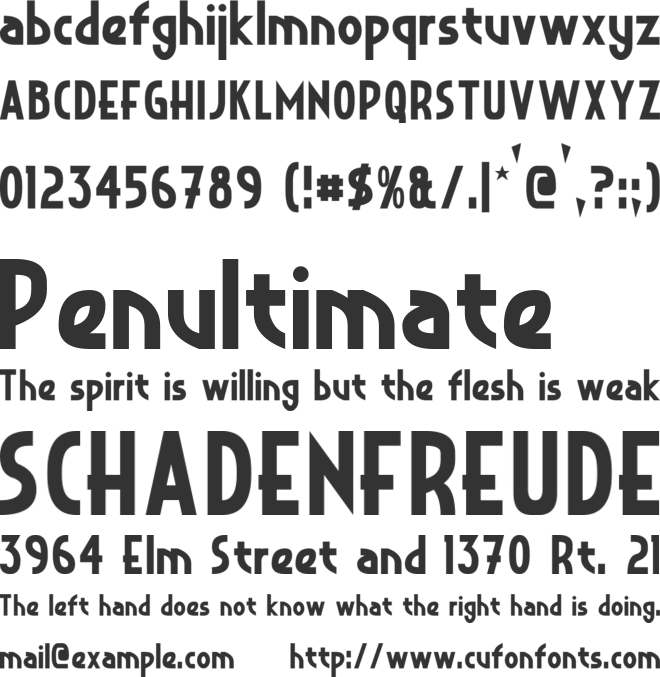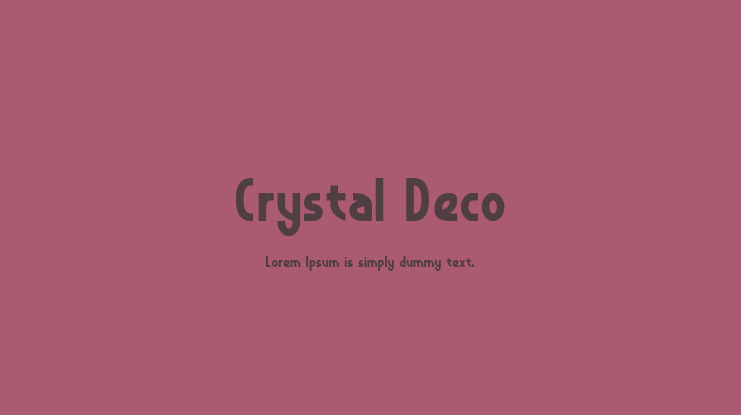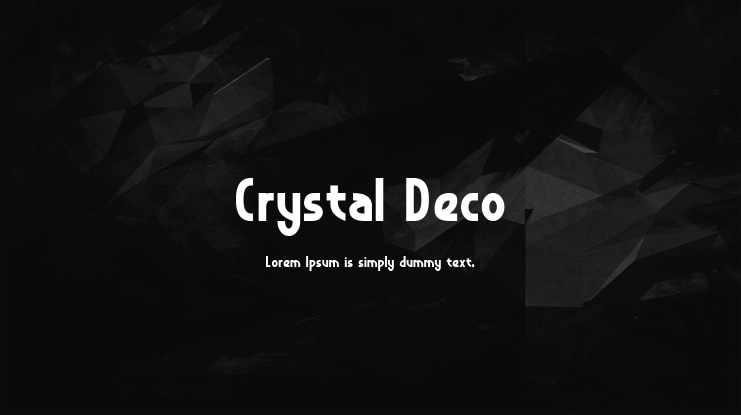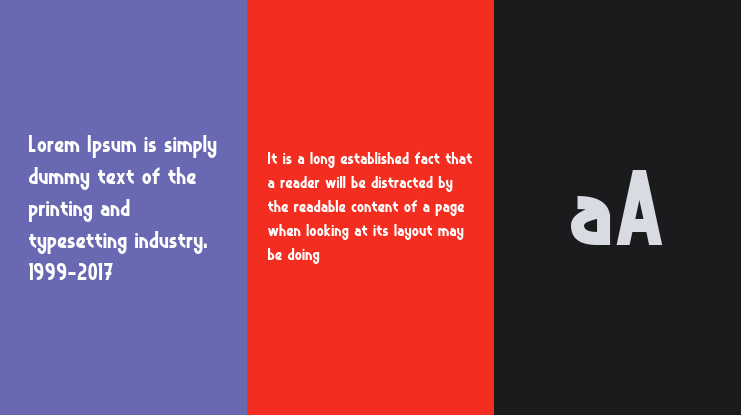
Crystal Deco Font Family
Neale Davidson
This art-deco typeface was made for a series of 'pulp' RPG adventures. This is based on the logo for much of the merchandising for "Indiana Jones and the Crystal Skull". Includes bold and italic versions.
- Added oe and per-thousand glyphs